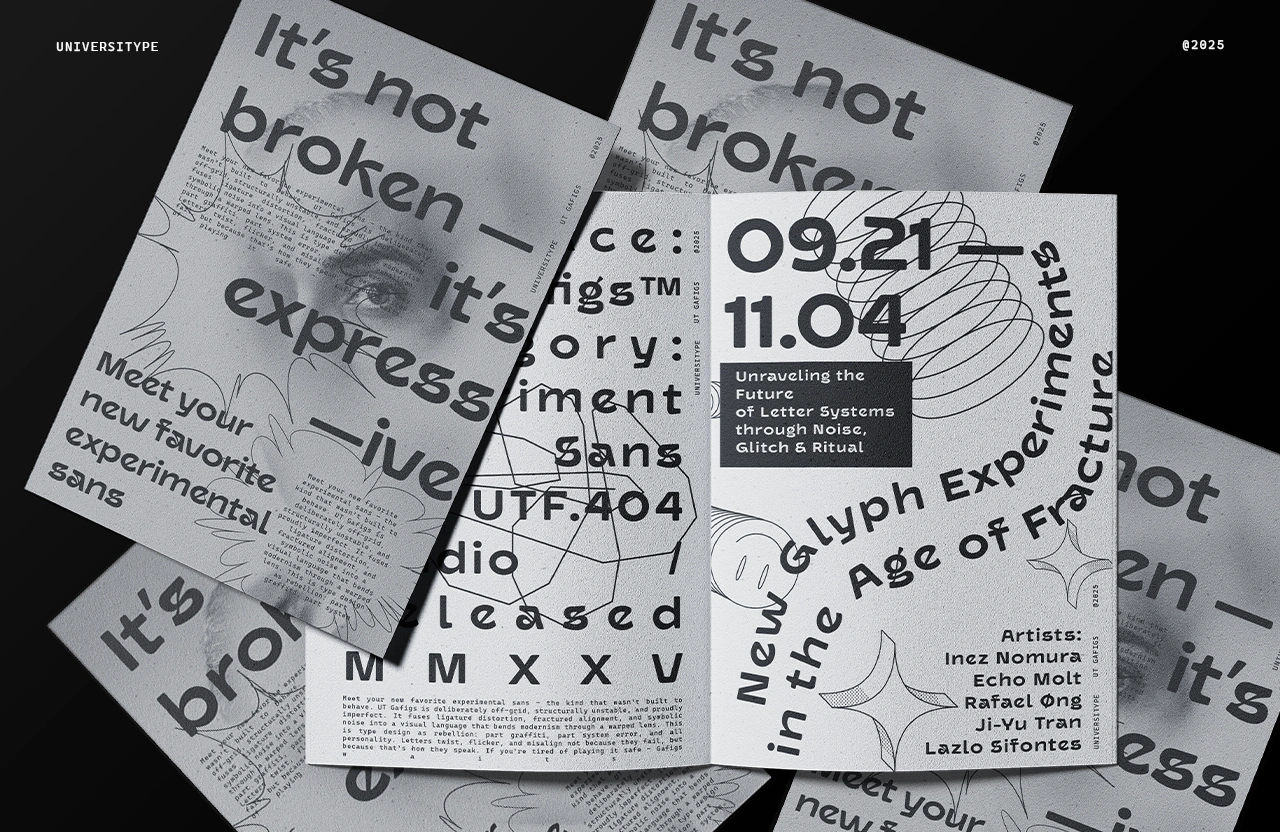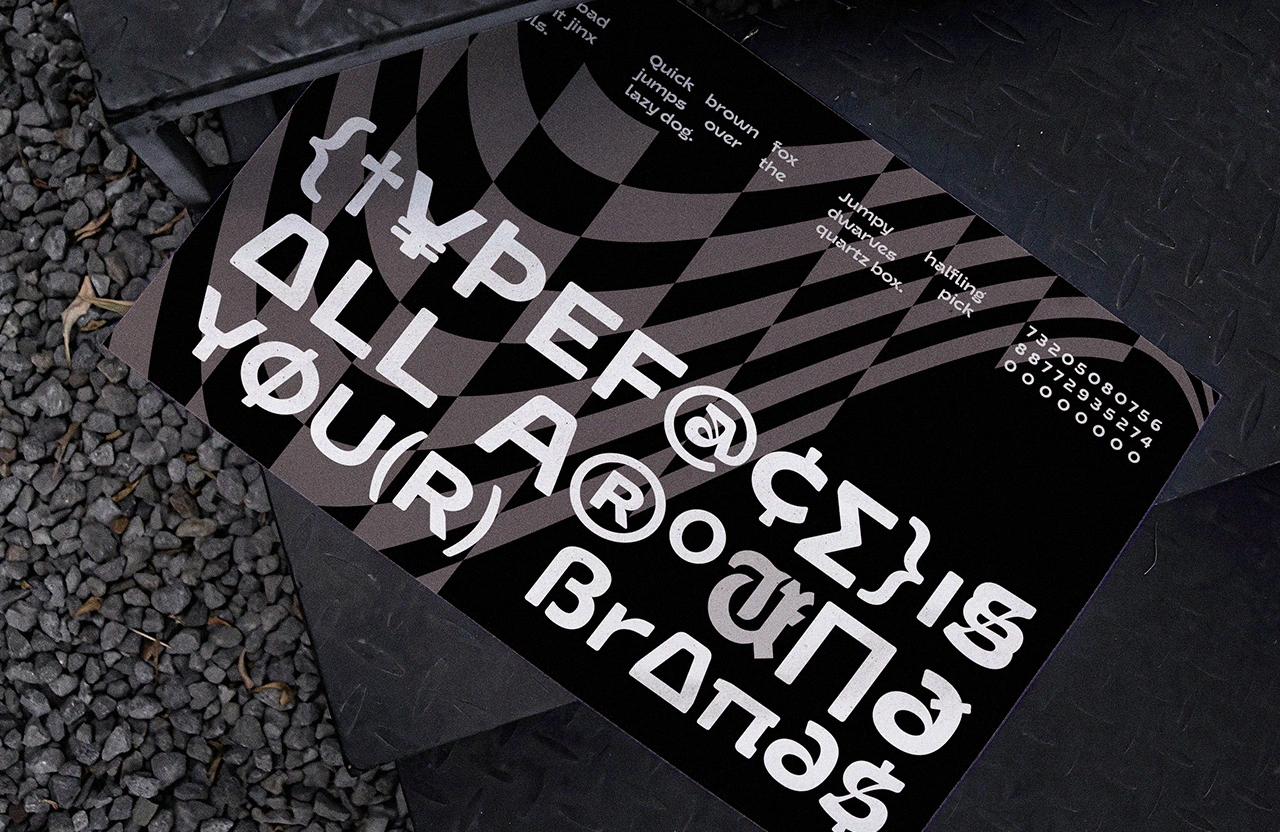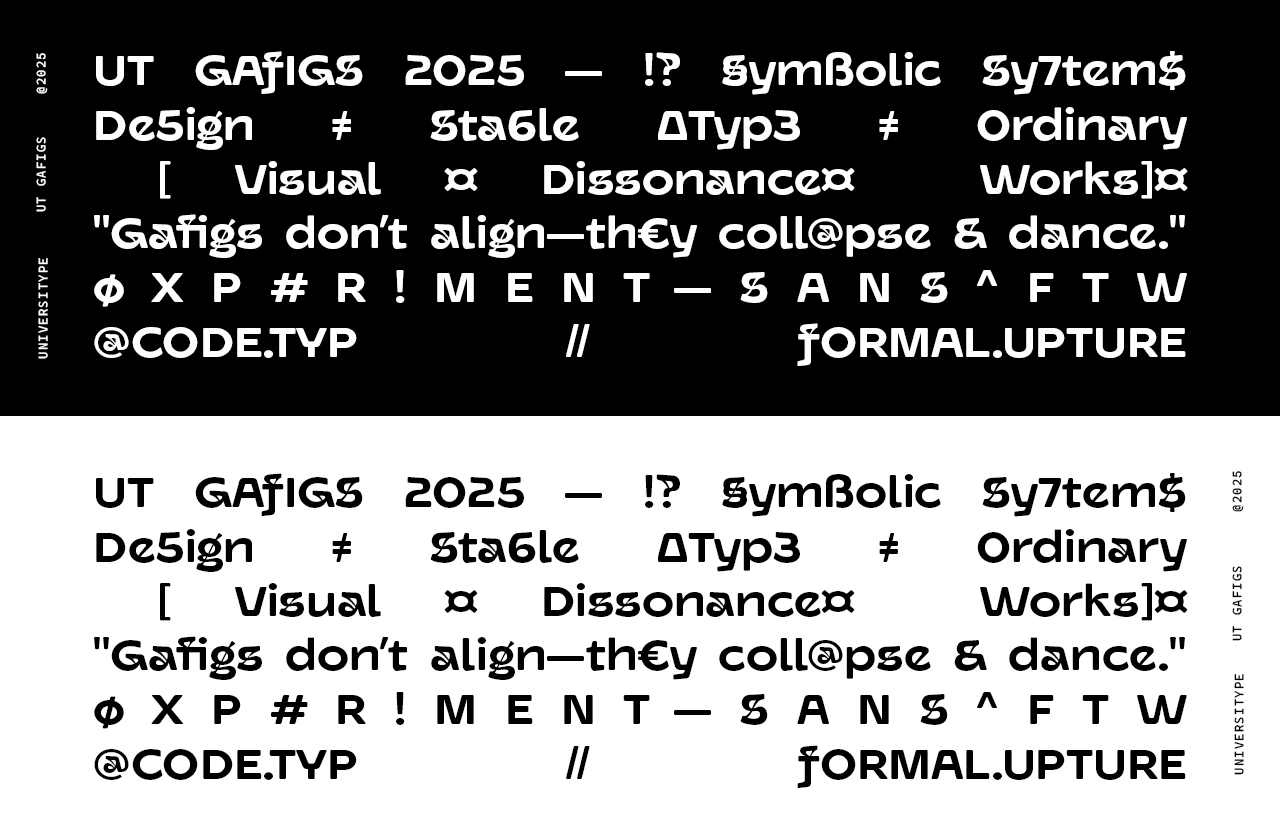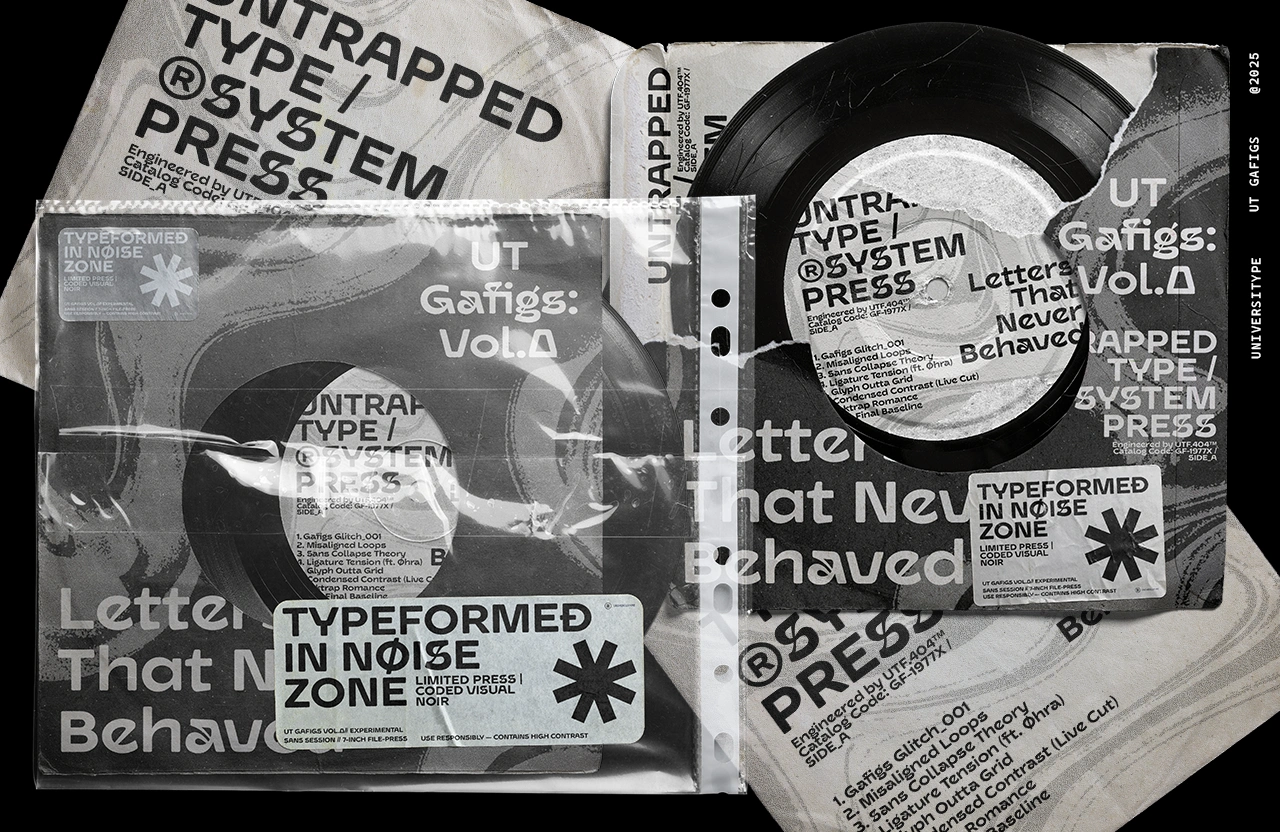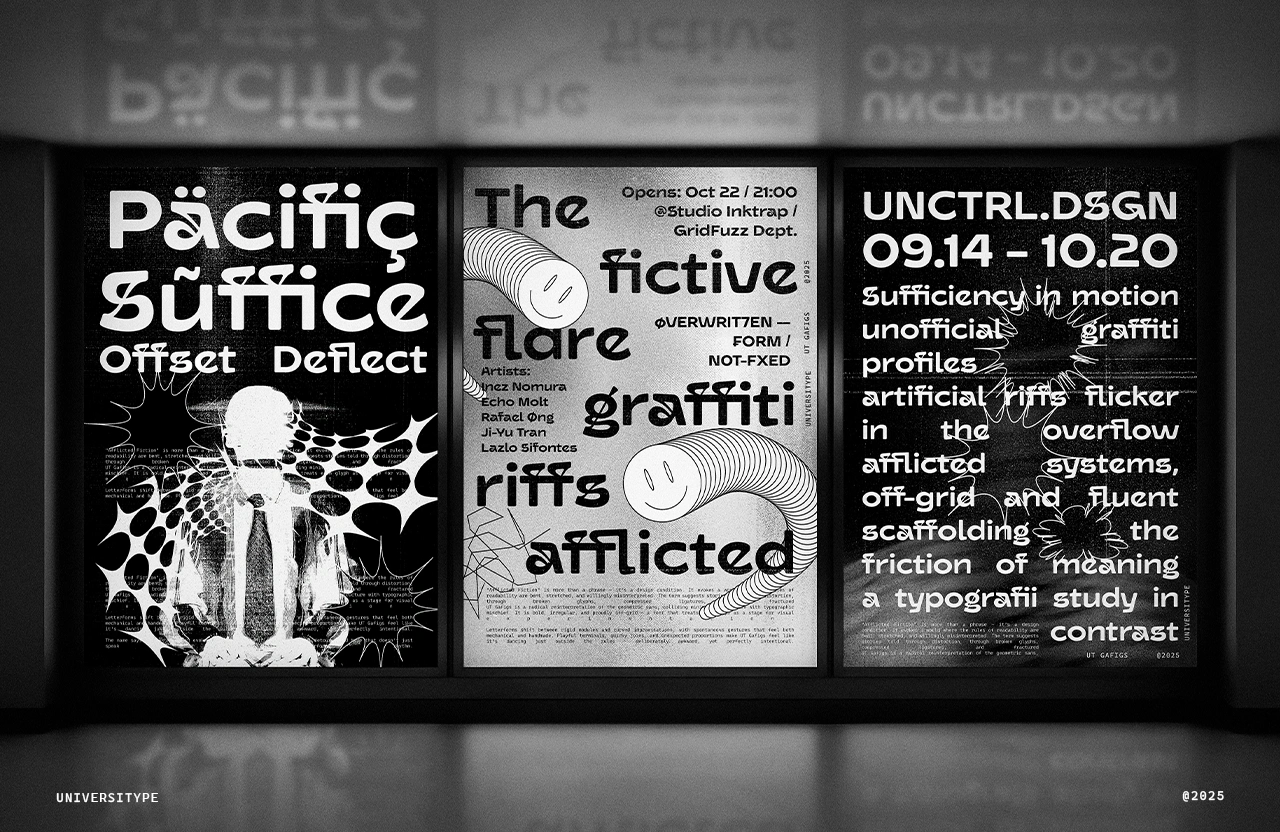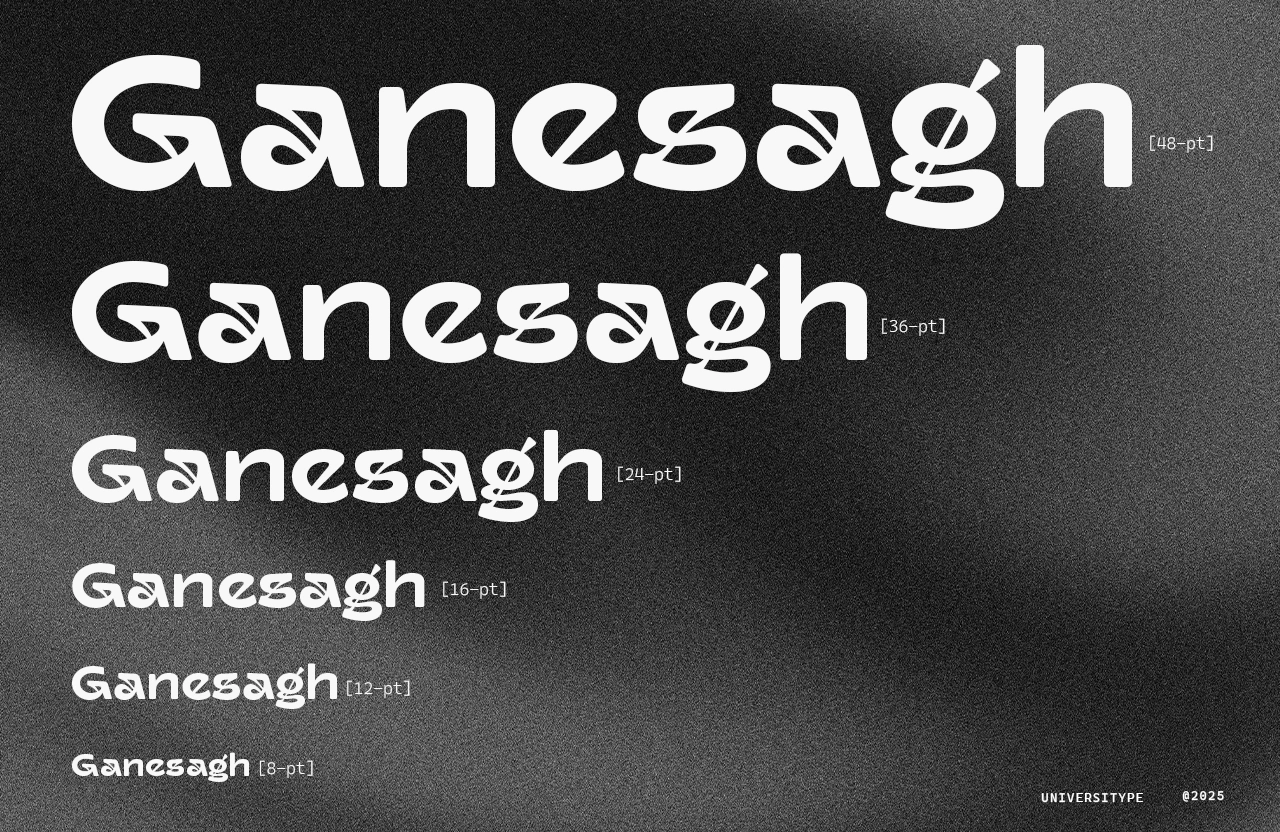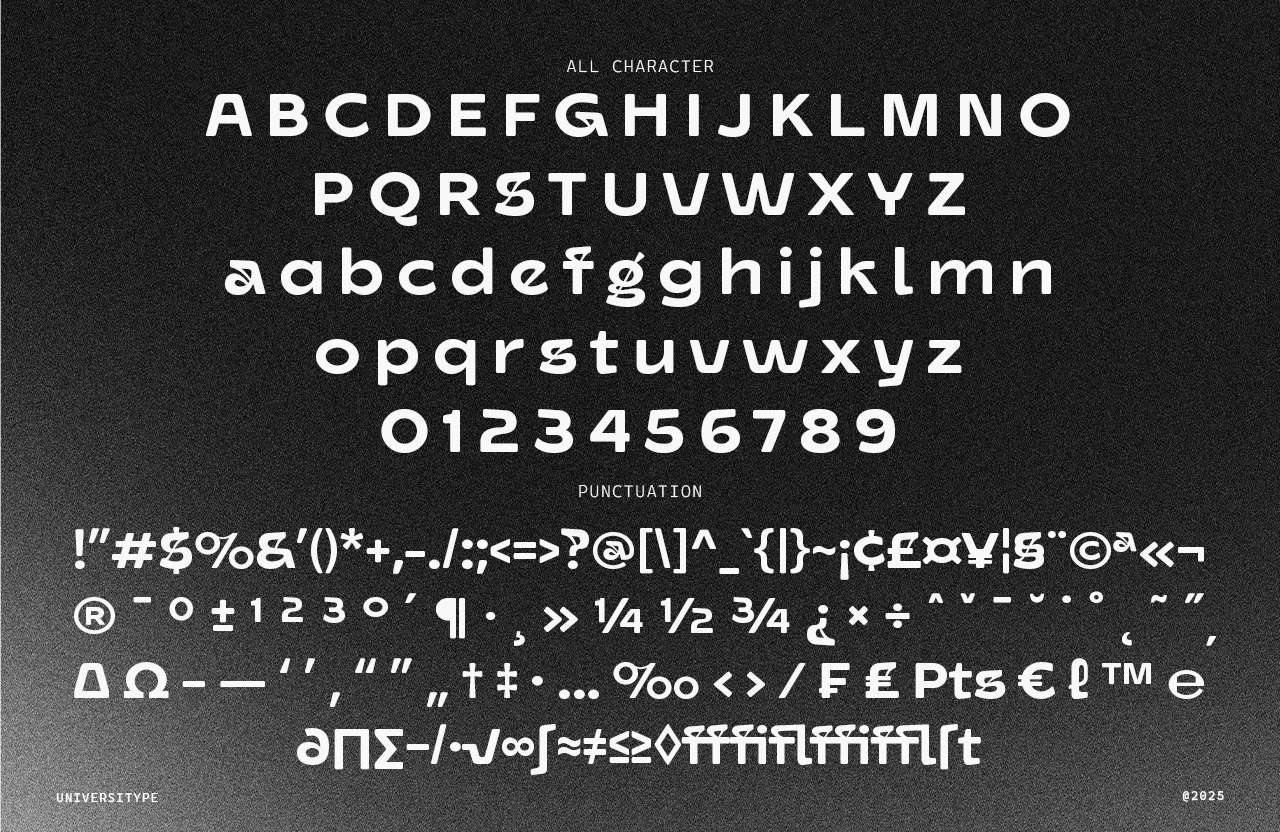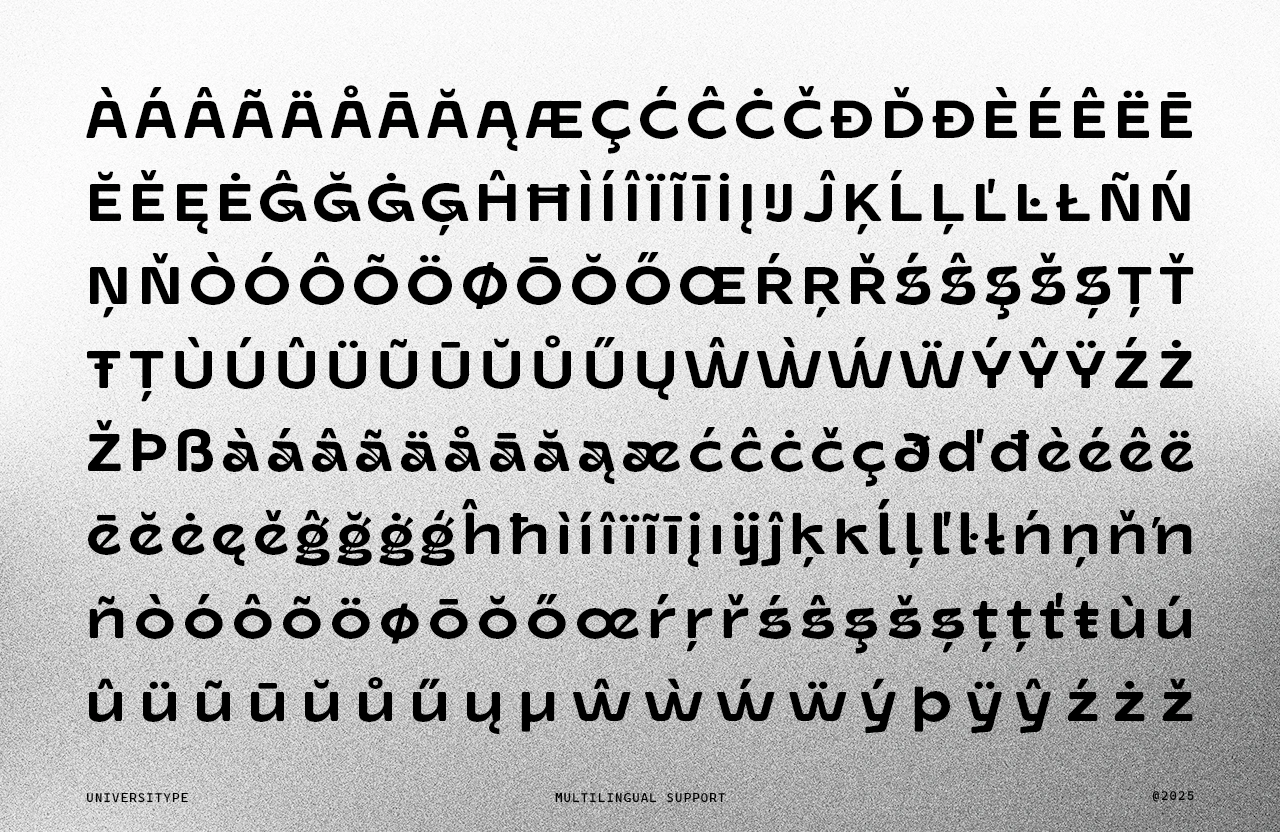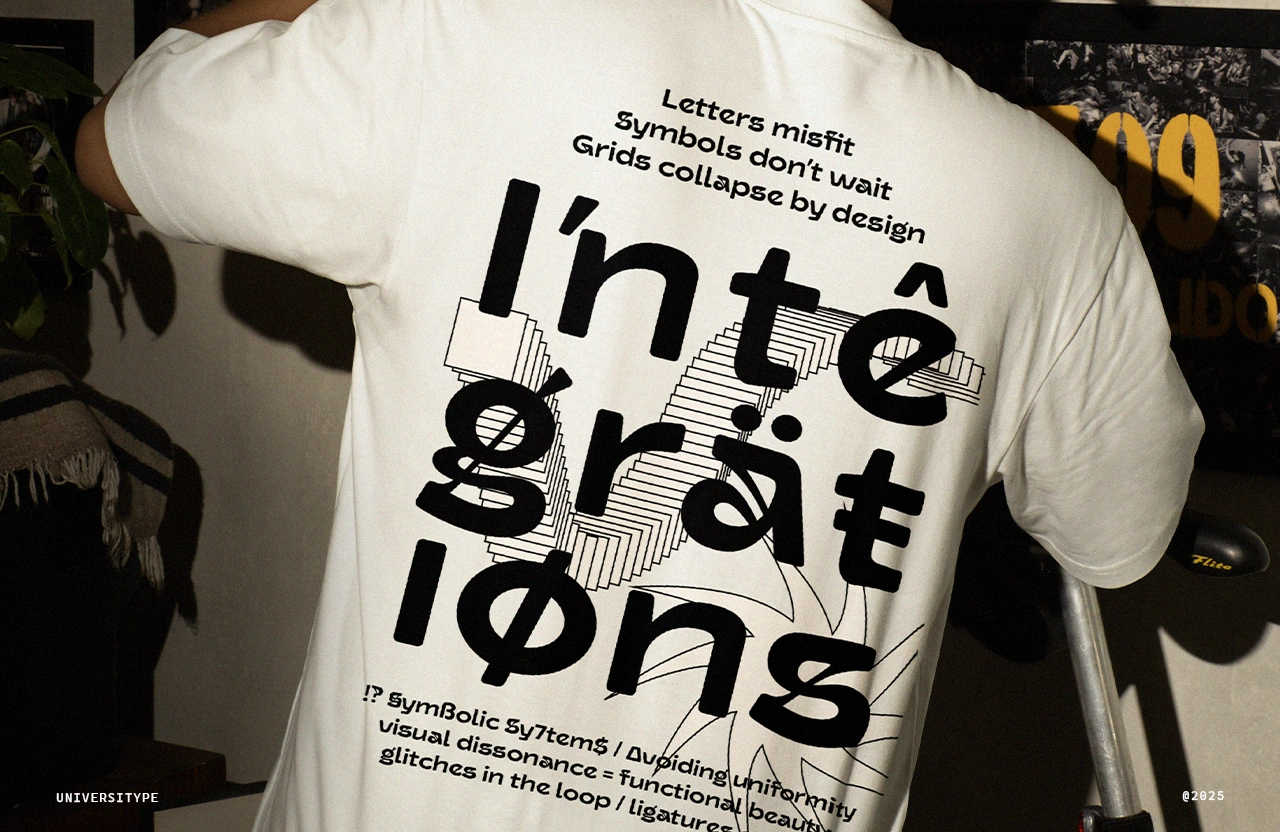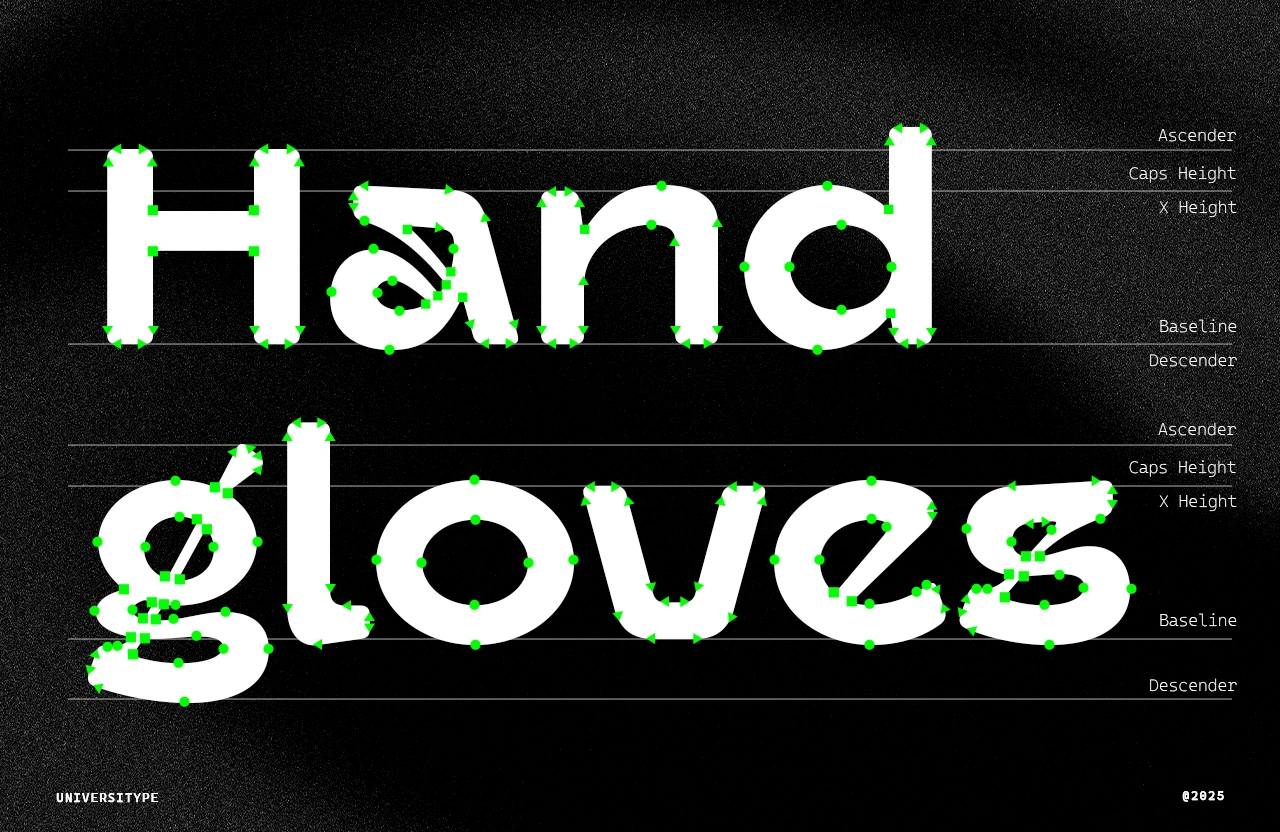
UT Gafigs
Introducing UT Gafigs, a groundbreaking font that dares to challenge the norms of traditional typography. This experimental sans-serif font is designed for those who seek to infuse their work with a sense of irregularity, chaos, and boldness. With its single weight and minimalist yet expressive design, UT Gafigs is perfect for creating a strong, cohesive visual identity in any design project.
UT Gafigs: The Chaos-Infused Geometric Sans-Serif for Bold Designers
Introducing UT Gafigs, a groundbreaking font that dares to challenge the norms of traditional typography. This experimental sans-serif font is designed for those who seek to infuse their work with a sense of irregularity, chaos, and boldness. With its single weight and minimalist yet expressive design, UT Gafigs is perfect for creating a strong, cohesive visual identity in any design project.
Target Audience:
UT Gafigs is ideal for graphic designers, typographers, and creative professionals seeking to make a statement with their work. It appeals to those who appreciate the beauty of imperfection and are drawn to innovative and unconventional design elements.
Key Features:
• Single Weight Design: UT Gafigs features a single weight, ensuring a consistent and impactful presence across all applications.
• Irregular and Chaotic Aesthetic: The font’s design intentionally incorporates irregularity and visual dissonance, creating a dynamic and eye-catching appearance.
• Geometric Sans-serif Style: With its blocky, angular design, UT Gafigs embodies the modern and clean look of geometric sans-serif fonts.
• Multi-Lingual Support: The font includes support for multiple languages, making it versatile for global design projects.
• Comprehensive Character Set: UT Gafigs includes a full set of punctuation marks, special characters, and numerals, ensuring comprehensive typesetting capabilities.
Inspiration Behind the Design:
UT Gafigs draws inspiration from the desire to break free from the constraints of traditional typography. It celebrates the beauty of imperfection and the power of visual experimentation. The font is designed to treat each glyph as a stage for exploration, encouraging designers to push the boundaries of their creativity.
Usage Suggestions:
UT Gafigs is perfect for a wide range of design applications, including:
• Branding and Identity Design: Create a unique and memorable brand identity with UT Gafigs’ bold and irregular letterforms.
• Print Media: Use UT Gafigs in posters, brochures, and other print materials to grab attention and make a statement.
• Apparel Design: Infuse your clothing and accessories with a sense of individuality and creativity using UT Gafigs.
• Packaging Design: Make your product packaging stand out with the eye-catching design of UT Gafigs.
• Web Design: Use UT Gafigs for headings, titles, and other prominent text elements on websites to create a strong visual impact.